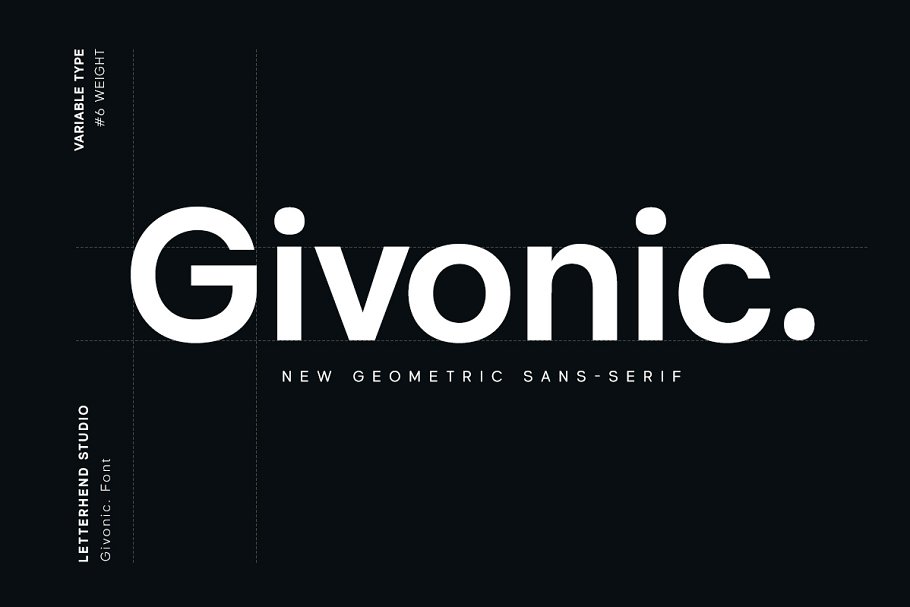
Looking for the perfect font to elevate your technology-related designs? Look no further than Givonic, the stunning variable font created by Hendry Juanda.
Givonic is a geometric sans serif font that features clean lines and a modern, stylish design. With 6 different weights and 18 styles + variable type, this font is incredibly versatile and can be used to add personality to any project. Whether you're working on branding, publishing, titles, books, magazines, or UI/UX design, Givonic is the perfect choice.
One of the key features of Givonic is its variable font technology. This means that you can adjust the weight, width, and other attributes of the font to create a truly customized look. And with both uppercase and lowercase letters, as well as numbers and punctuation, Givonic is a complete typeface that can be used in a wide range of contexts.
Overall, Givonic is a font that is both beautiful and functional. Whether you're looking to create a cutting-edge brand identity or simply add some flair to your design projects, Givonic is sure to impress. So why wait? Start using Givonic today and take your designs to the next level!